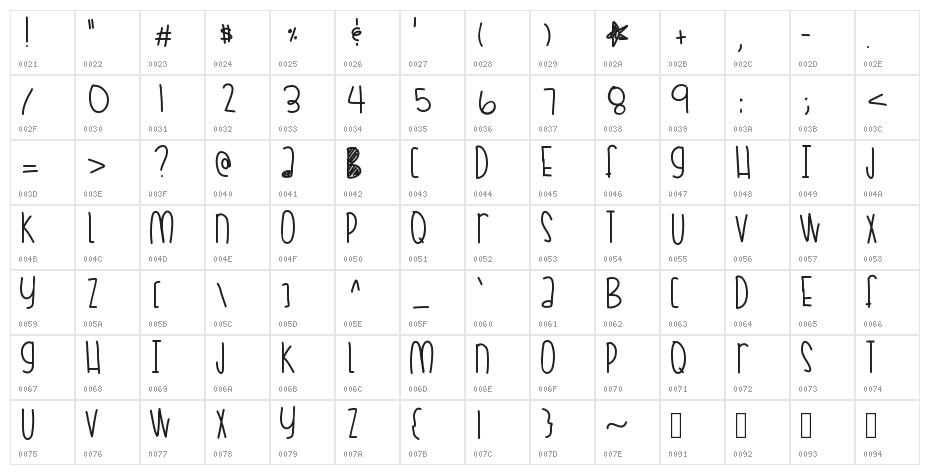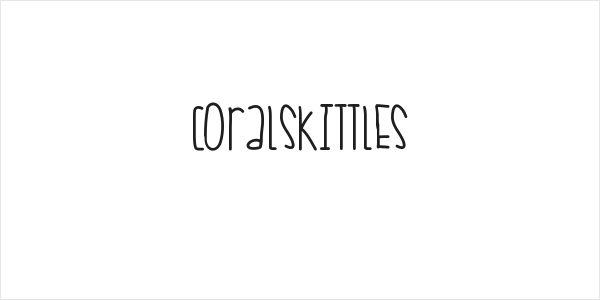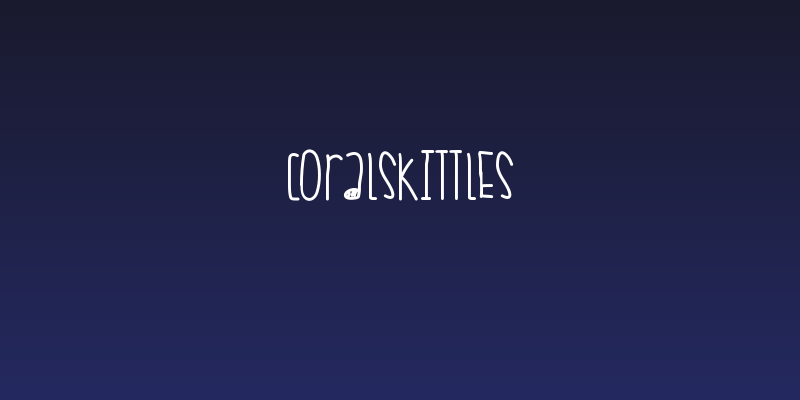
CoralSkittles Font
CoralSkittles Description
This playful and whimsical font features a handwritten style with a casual and informal appearance. The characters are tall and narrow, with a consistent stroke width that gives it a uniform look. The uppercase and lowercase letters maintain a cohesive design, with rounded edges and a slightly irregular baseline that adds to its charm. The numbers and special characters follow the same playful aesthetic, making it suitable for creative and fun projects. The font's overall style is approachable and friendly, making it ideal for designs that aim to convey a sense of joy and creativity.
| Proposed Projects | Great for children's books, playful branding, greeting cards, and creative posters. |